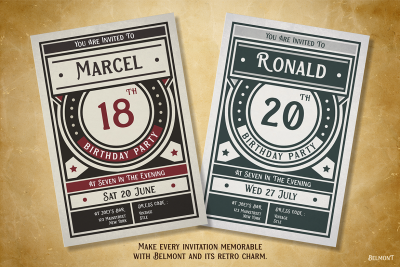
Vintage Font Belmont radiates classic charm and timeless sophistication, making it the perfect choice for those seeking a nostalgic yet refined aesthetic. With its bold curves and intricate details, this font effortlessly evokes the craftsmanship of bygone eras. Moreover, it strikes the ideal balance between elegance and strength, ensuring your designs make a memorable impact.
Not only does Belmont deliver a traditional appeal, but it also offers remarkable versatility. You can confidently use it across a variety of mediums, whether for print or digital platforms. For instance, its bold letterforms maintain clarity and charm, ensuring effective readability in headlines, logos, and decorative graphics. Furthermore, its vintage flair effortlessly enhances layouts, allowing designers to create striking compositions that resonate with audiences.
Additionally, Belmont adapts to different design needs, depending on context and color usage. Whether you’re aiming for a classy and sophisticated tone or a bold and adventurous vibe, this font will help you achieve the desired effect. Consequently, it suits a wide range of projects, from event posters to product labels, ensuring your designs remain timeless and impactful.
Vintage Font Belmont Who Itโs Perfect For
Vintage Font Belmont is ideal for creatives and professionals who want to add retro charm to their work. For graphic designers, branding experts, and marketers, it offers the ability to evoke authenticity and character effortlessly. Particularly, Belmont shines in projects for artisan brands such as coffee shops, breweries, bakeries, and boutiques. By conveying warmth and tradition, it helps businesses focus on storytelling and heritage.
Event planners and stationery designers, on the other hand, will find Belmont especially suitable for wedding invitations, menus, and other personalized materials. Not only does it create luxurious event branding, but it also impresses clients and guests with its cohesive aesthetic. Additionally, the font complements holiday-themed designs and promotional materials for cultural or vintage-inspired events.
For social media creators, Belmont is a game-changer. It enhances Instagram posts, Pinterest graphics, and Facebook banners with its bold, eye-catching style. Likewise, lifestyle bloggers and influencers can use it to elevate their digital content, adding sophistication to topics like travel, food, or fashion.
In the publishing world, Belmont transforms book covers, magazine layouts, and editorial designs with its vintage elegance. Moreover, its premium feel makes it the ideal choice for crafting product packaging that stands out on shelves. Whether your project requires old-world charm or a blend of classic and modern elements, Vintage Font Belmont remains a versatile and indispensable design asset.